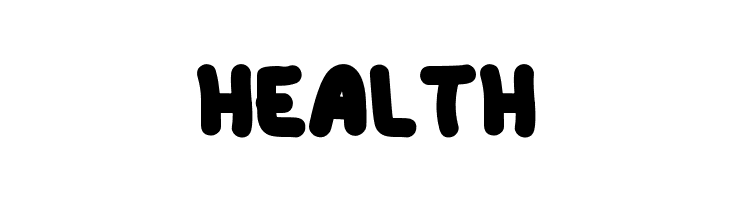
( Fonts by Darrell Flood )
A bold, geometric font with uniform stroke width and strong presence.
( Fonts by Darrell Flood )
A bold, italic font with a dynamic and modern style.
A bold, playful font with rounded, curvy strokes and high contrast.
( Fonts by Brian Galecki )
A bold, geometric font with strong, block-like shapes and sharp angles.
A bold, expressive handwritten font with fluid, cursive strokes and decorative flair.